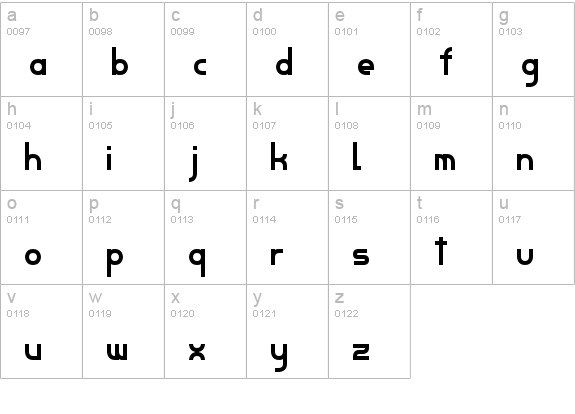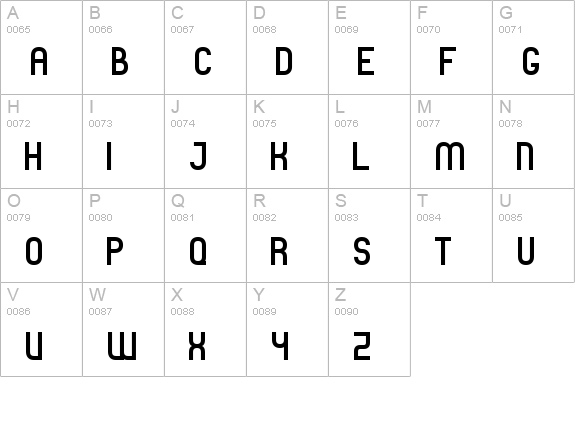
Introducing TPF Janus, a captivating and versatile font that effortlessly combines elegance and modernity. With its graceful curves and clean lines, TPF Janus is a true masterpiece that will elevate any project to the next level. This font is meticulously crafted to provide a seamless reading experience, making it suitable for a wide range of design applications. Whether you're designing a logo, creating a stunning website, or designing eye-catching posters, TPF Janus will make your text come alive with its unique personality. One of the most remarkable aspects of TPF Janus is that it is freely available to download at FontsMarket.com. Yes, you read that right - this exceptional font can be yours at absolutely no cost. Now, you can bring your creative visions to life without breaking the bank. TPF Janus offers a vast array of characters, including uppercase and lowercase letters, numerals, punctuation marks, and special symbols. This versatility ensures that you have all the necessary tools to create visually captivating and engaging designs that will leave a lasting impression. Furthermore, TPF Janus is designed with utmost attention to detail, ensuring optimal legibility at any size. Whether you're working on a small caption or a large-scale headline, this font guarantees that your message will be crystal clear, making it an excellent choice for both print and digital projects. Don't miss out on the opportunity to enhance your design arsenal with TPF Janus. Download it now from FontsMarket.com and unlock the limitless creative possibilities it offers. Experience the freedom of creativity with this remarkable font and watch your designs flourish like never before.